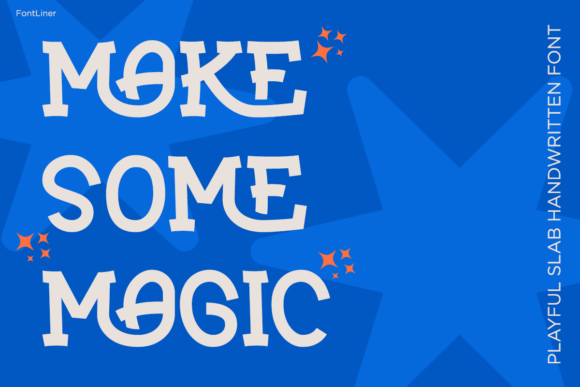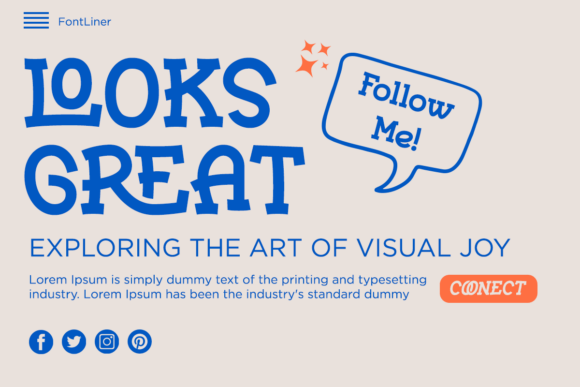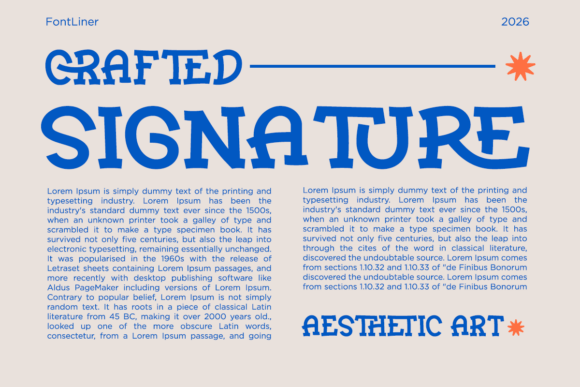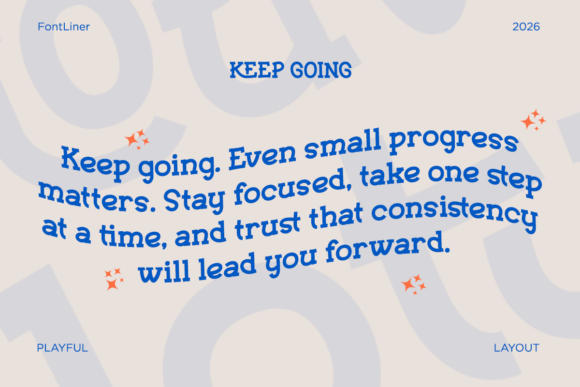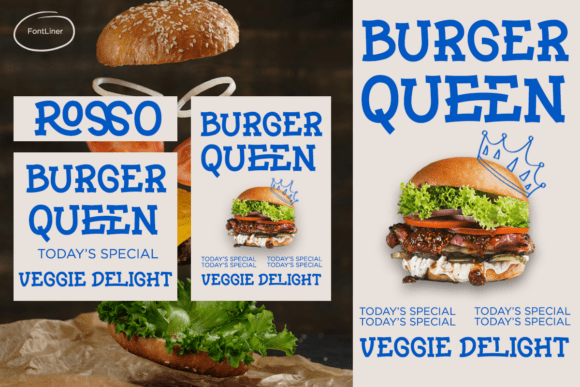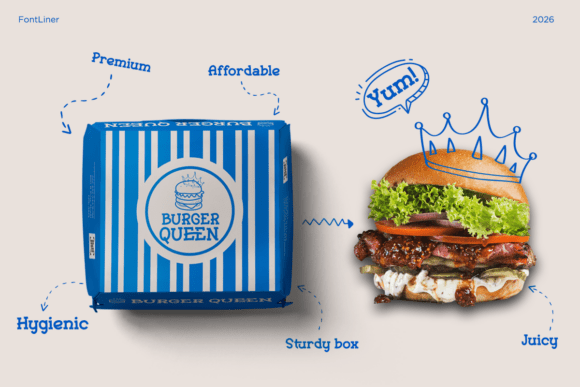
Introducing Haluna Font: The Playful Slab Handwritten Font for Creative Designs
Are you looking for a font that can bring warmth, personality, and joyful expression into your designs? Look no further than Haluna Font, a playful slab handwritten font that is perfect for creative projects. Inspired by hand-drawn lettering and friendly visual storytelling, Haluna blends bold slab shapes with a natural handwritten flow, creating a typeface that feels fun, approachable, and full of character.
The Unique Characteristics of Haluna Font
Haluna Font is designed to bring a strong presence to your designs while maintaining a casual and cheerful tone. Its chunky forms and soft curves give it a unique personality that is both eye-catching and engaging. The font’s bold slab shapes provide a solid foundation, while its natural handwritten flow adds a touch of warmth and humanity. This balance makes Haluna perfect for a wide range of creative projects, from branding and packaging to posters, children’s content, social media graphics, and lifestyle designs.
Haluna Font is ideal for designers and crafters who want to add a personal touch to their work. Its playful and approachable nature makes it perfect for projects that need to feel human and engaging. Whether you’re creating a brand identity, designing a poster, or crafting a social media graphic, Haluna Font is sure to bring a smile to your audience’s face. The font’s charm and personality shine through in every letter, making it an excellent choice for projects that require a bit of whimsy and fun.
Key Features of Haluna Font
Haluna Font comes equipped with a range of features that make it a versatile and expressive typeface. These include:
- Uppercase and lowercase characters for a natural flow
- Regular and italic styles for added flexibility
- Special ligatures for a touch of personality
With these features, designers can create dynamic layouts that feel personal and memorable across both print and digital media. Each detail is carefully crafted to feel organic and lively, making Haluna Font the perfect choice for designers who want to create engaging and expressive typography.
Benefits of Using Haluna Font
So why choose Haluna Font for your next project? Here are just a few benefits of using this playful slab handwritten font:
- Instant charm: Haluna Font adds a touch of personality and whimsy to your designs, making them more engaging and memorable.
- Readability: Despite its playful nature, Haluna Font remains highly readable, making it perfect for body text and headlines.
- Flexibility: With its range of features, including uppercase and lowercase characters, regular and italic styles, and special ligatures, Haluna Font offers flexibility for expressive typography.
- Uniqueness: Haluna Font is a one-of-a-kind typeface that will set your designs apart from the crowd.
In conclusion, Haluna Font is a playful slab handwritten font that is perfect for designers and crafters who want to add warmth, personality, and joyful expression to their designs. With its unique characteristics, key features, and benefits, Haluna Font is an excellent choice for a wide range of creative projects. Whether you’re creating a brand identity, designing a poster, or crafting a social media graphic, Haluna Font is sure to bring a touch of charm and personality to your work. So why not give it a try and see the difference it can make in your designs?
Get Ready to Fall in Love with Haluna Font
Haluna Font is a typeface that will capture your heart and inspire your creativity. Its playful and approachable nature makes it perfect for designers who want to create engaging and expressive typography. With its range of features and benefits, Haluna Font is an excellent addition to any designer’s toolkit. So what are you waiting for? Fall in love with Haluna Font and bring a touch of joy and personality to your designs today!